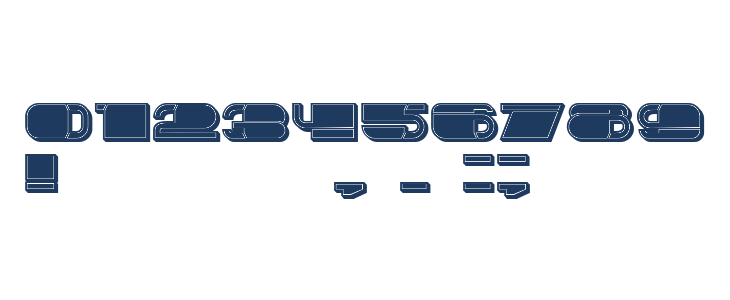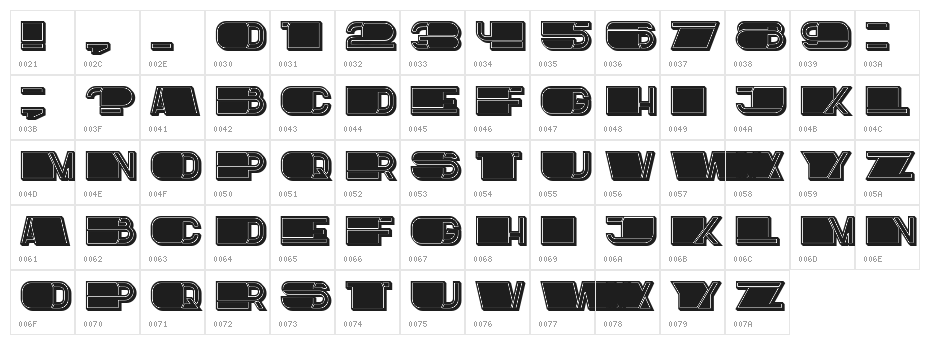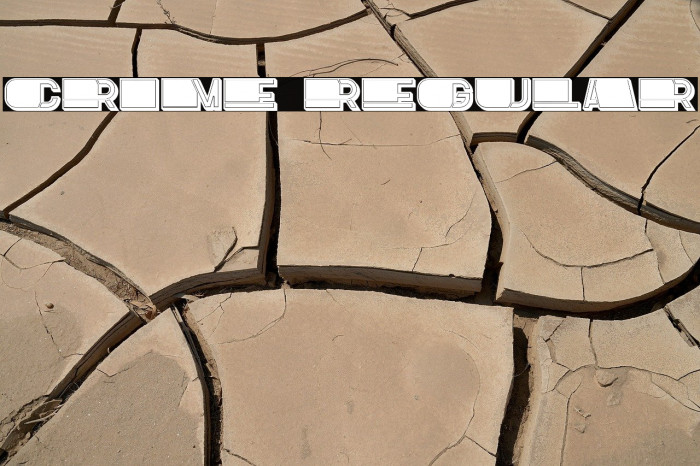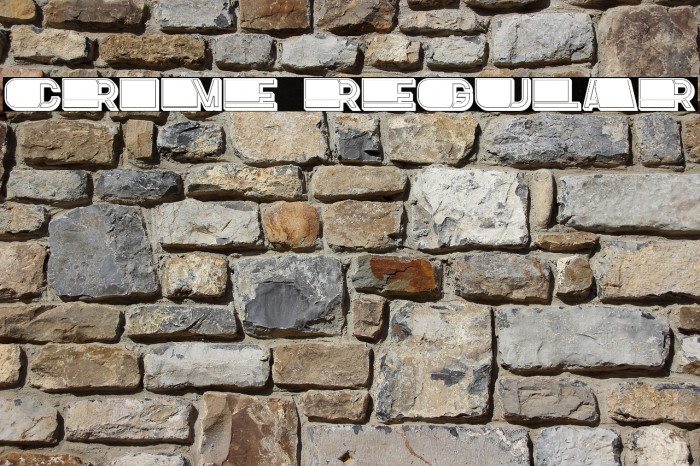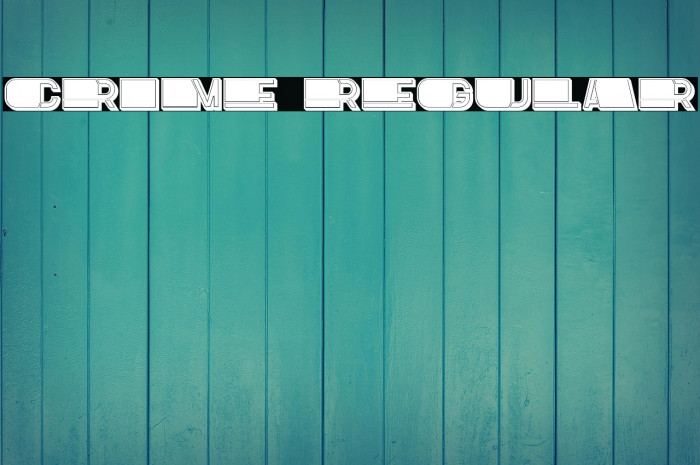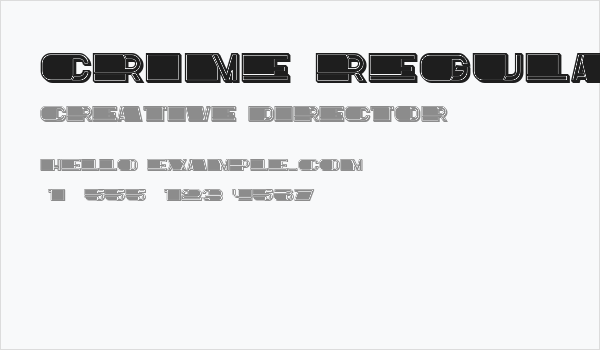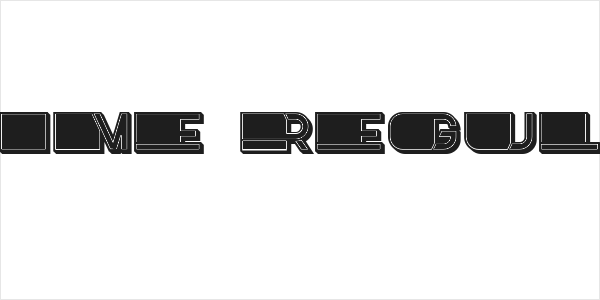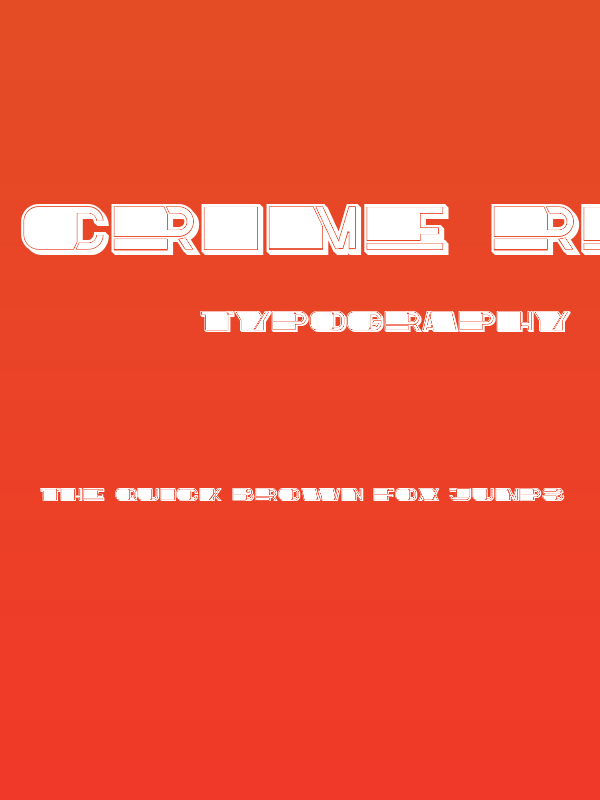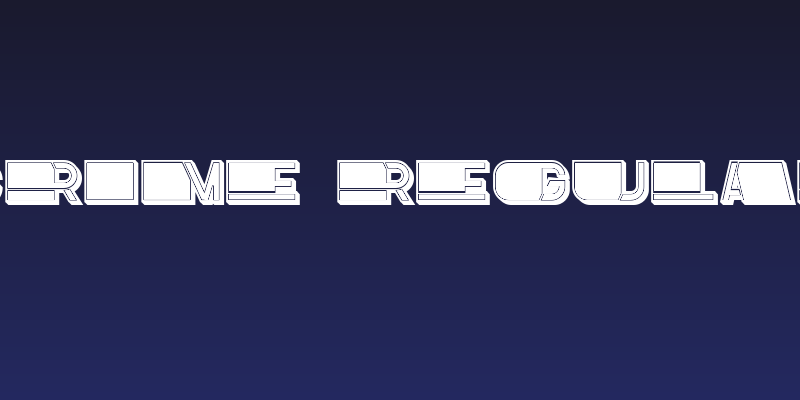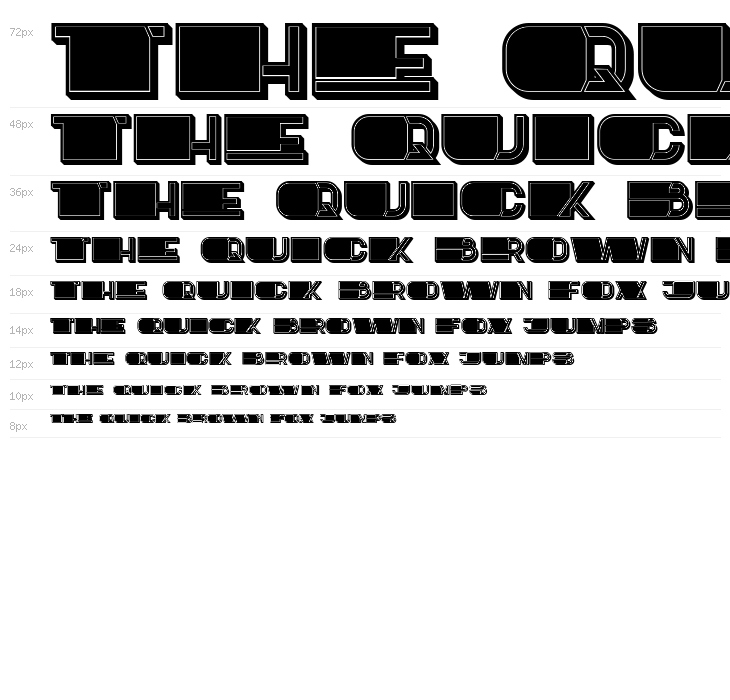
Crime Regular Font
Crime Regular Description
This font features a bold, geometric design with a distinct three-dimensional effect. The characters are constructed with thick, block-like shapes that create a sense of depth and solidity. The edges are sharp and angular, giving the font a modern and industrial feel. The uppercase and lowercase letters maintain a consistent style, with the numbers and special characters following suit. The font's unique structure makes it stand out, suitable for attention-grabbing designs.
| Proposed Projects | Ideal for posters, logos, branding, and any design requiring a strong, impactful typeface. |